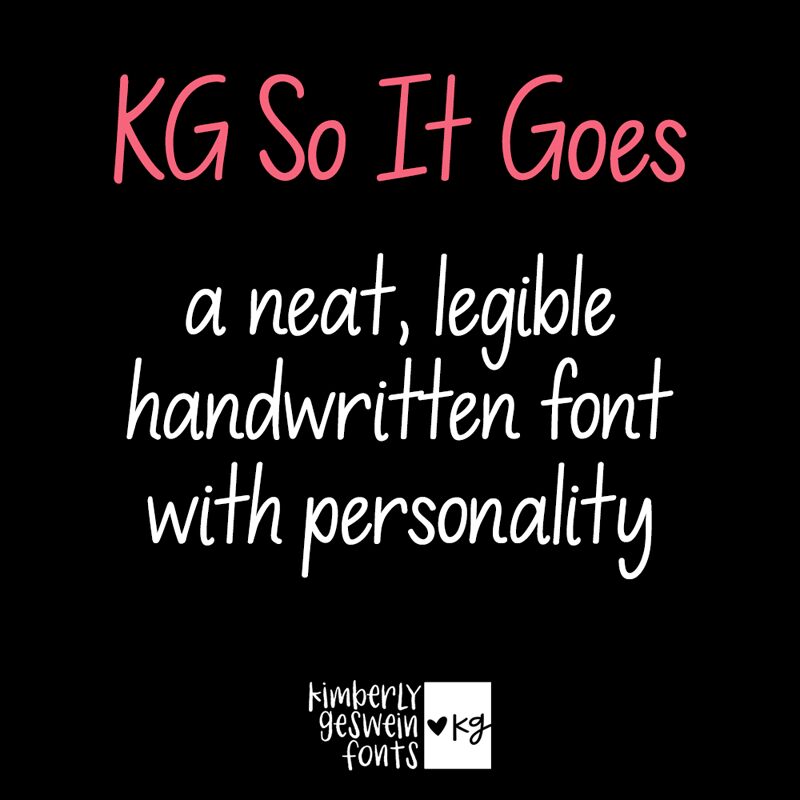
KG So It Goes
KG So It Goes, designed by Kimberly Geswein, embodies the charm and intimacy of handwritten communication with its semi-light weight and semi-condensed width. This font captures the essence of personal touch in every curve and line, evoking a sense of warmth and authenticity that digital typefaces often lack. Its aesthetic appeal lies in the balance between legibility and artistic flair, making it an excellent choice for projects that require a hint of personality without sacrificing clarity.
The handcrafted nature of KG So It Goes lends itself beautifully to creative endeavors such as personalized stationery, inspirational quotes, or branding for boutique businesses. Its style resonates particularly well with designs that aim to convey honesty and approachability. Whether you're crafting a heartfelt invitation or putting together a casual blog layout, KG So It Goes is versatile enough to infuse your work with individuality while maintaining professional polish.